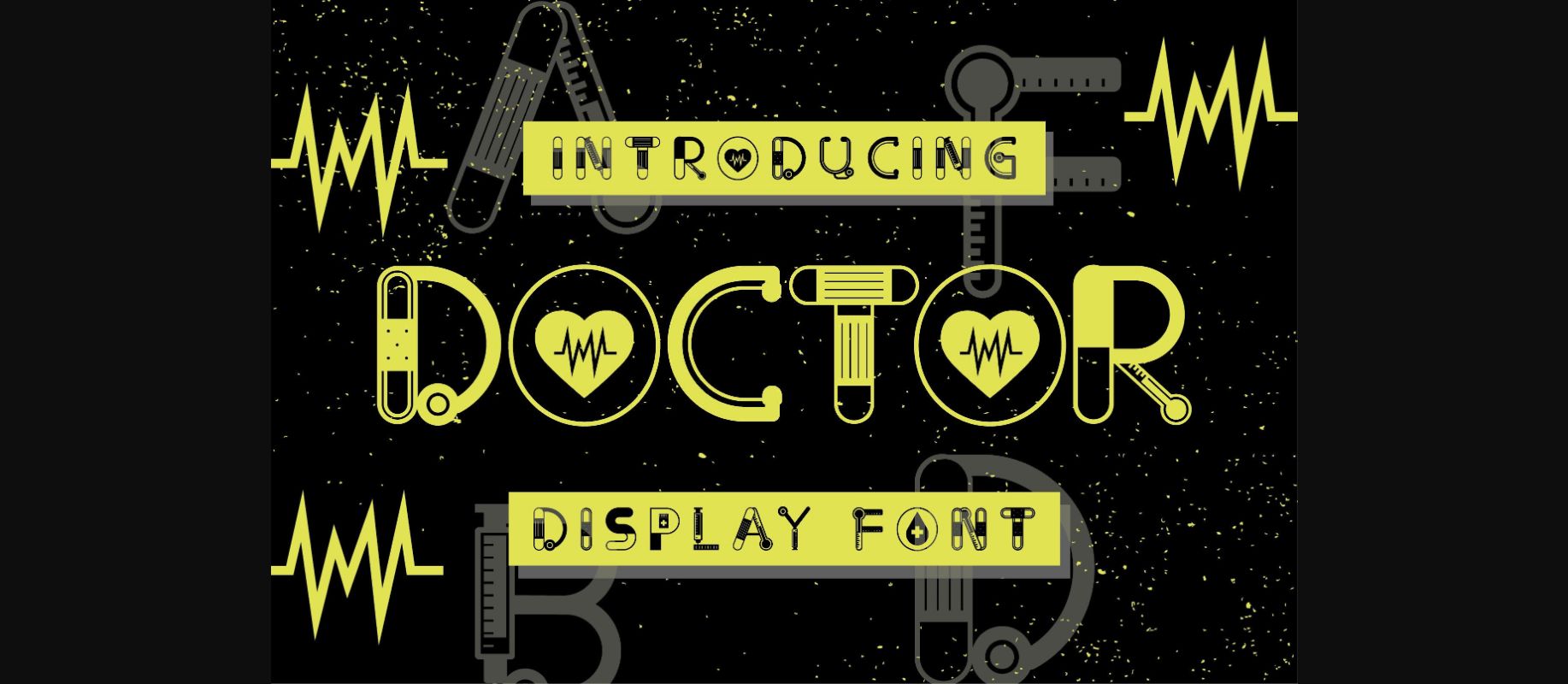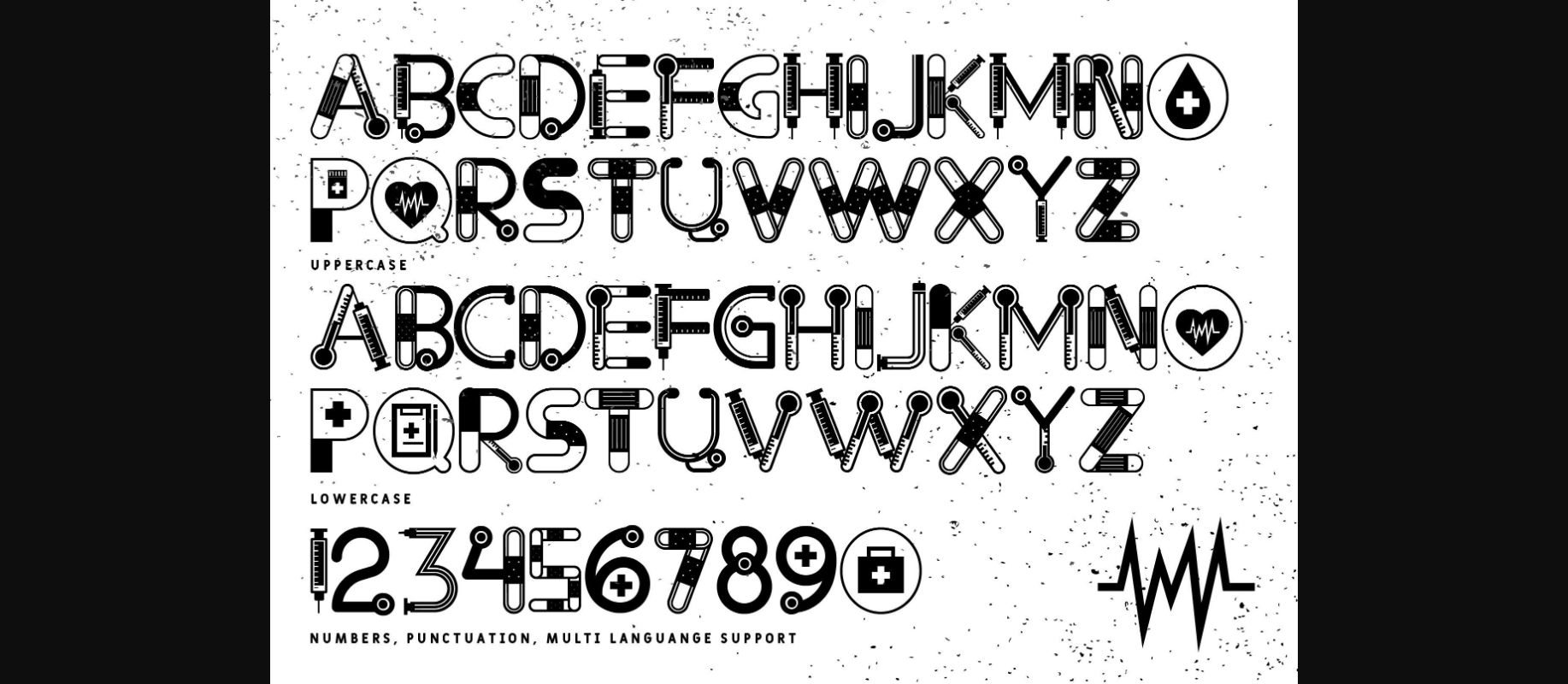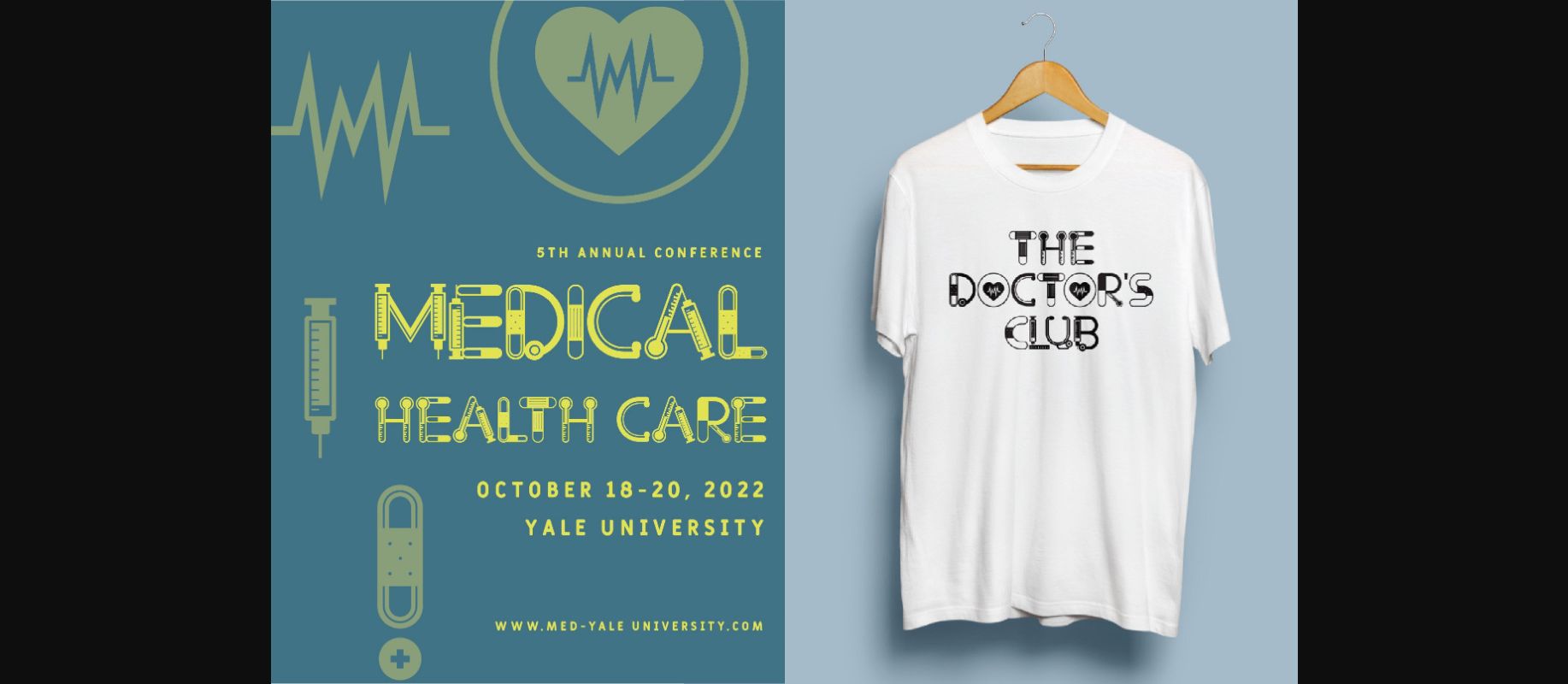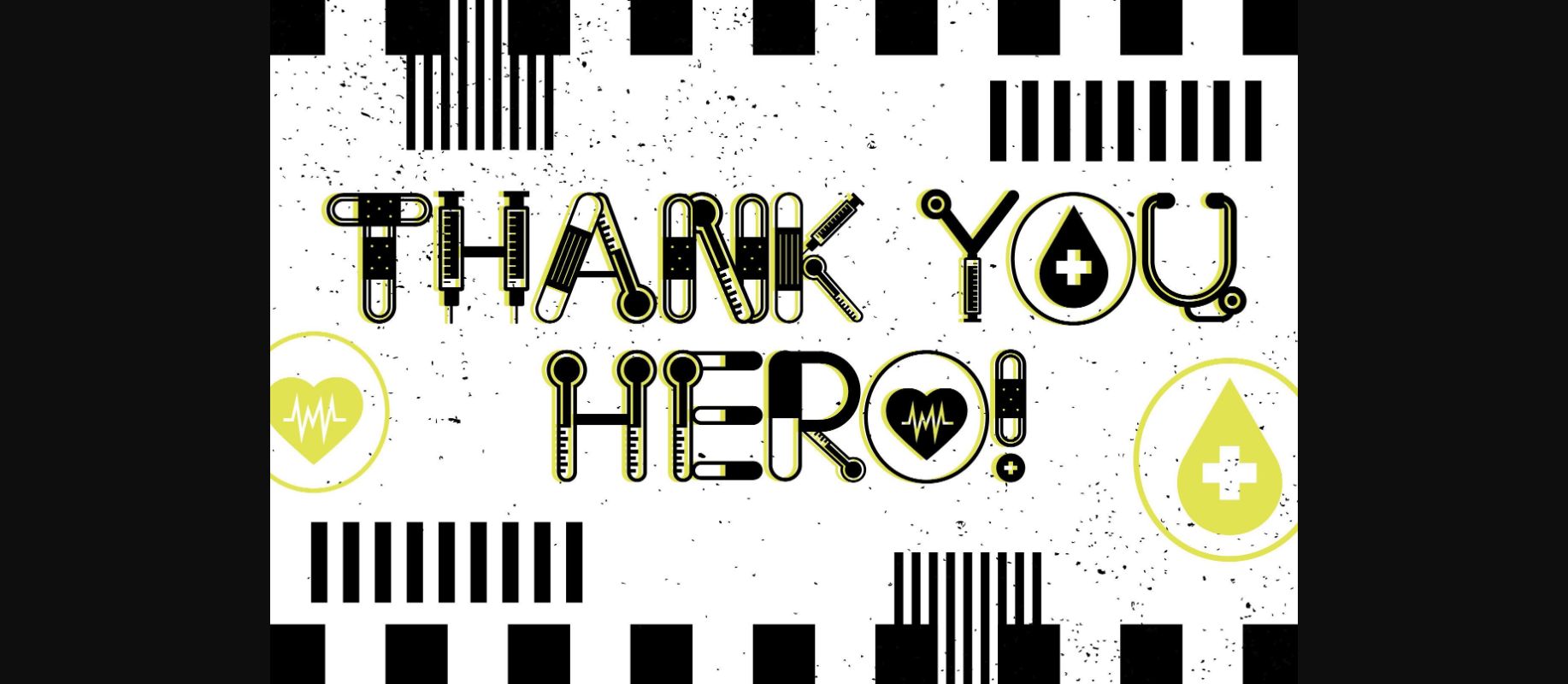
About Doctor Font
“Doctor” is a medical theme decorative font suitable for medical-related design. “Doctor” is perfect to be a title’s book, posters, t-shirts, and many other things. Make your own design with this unique font.